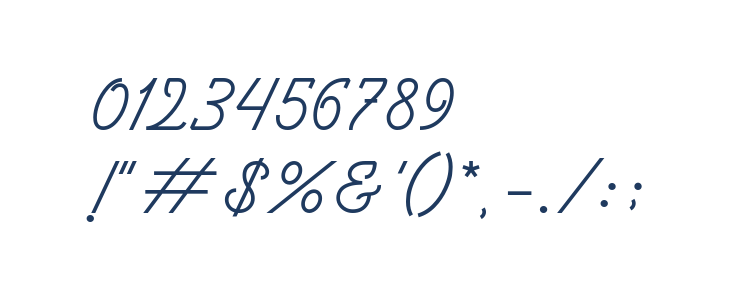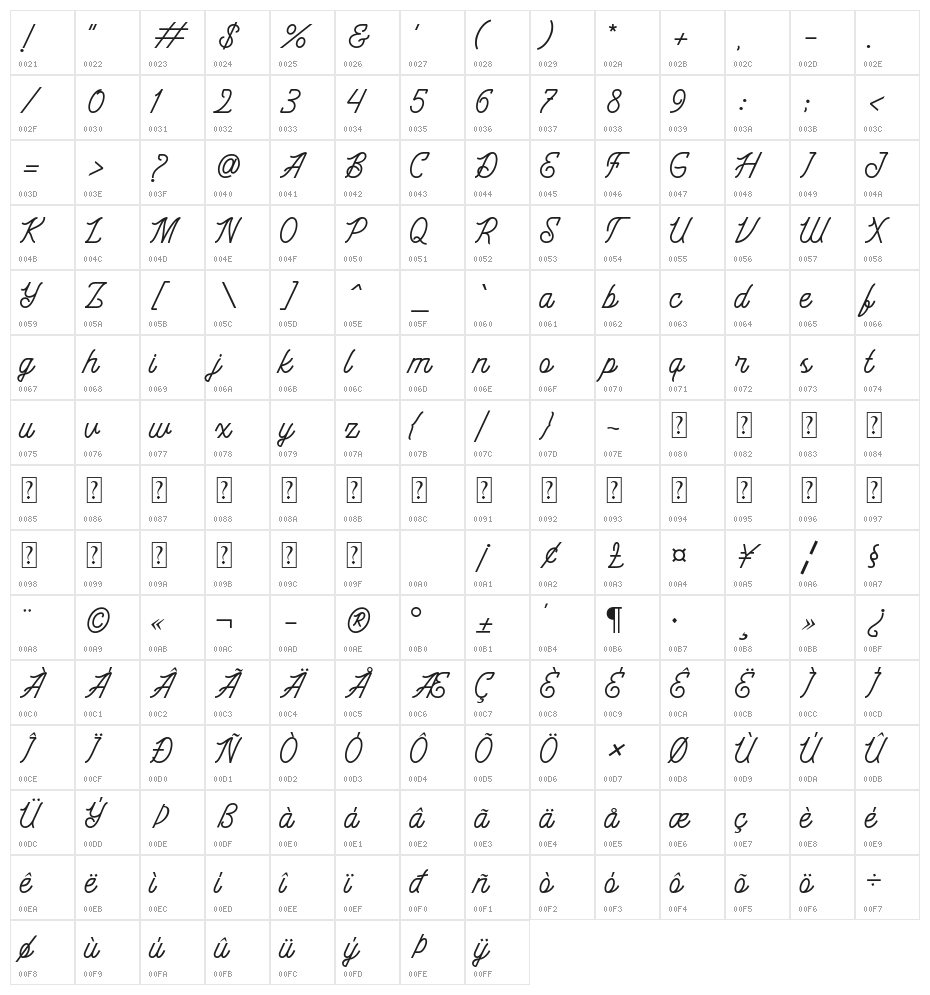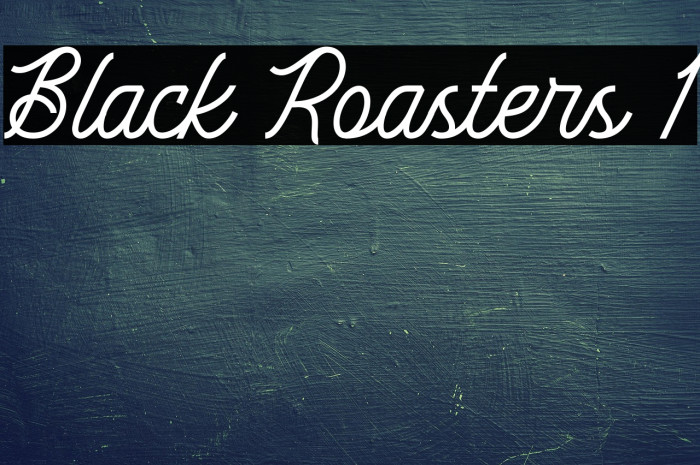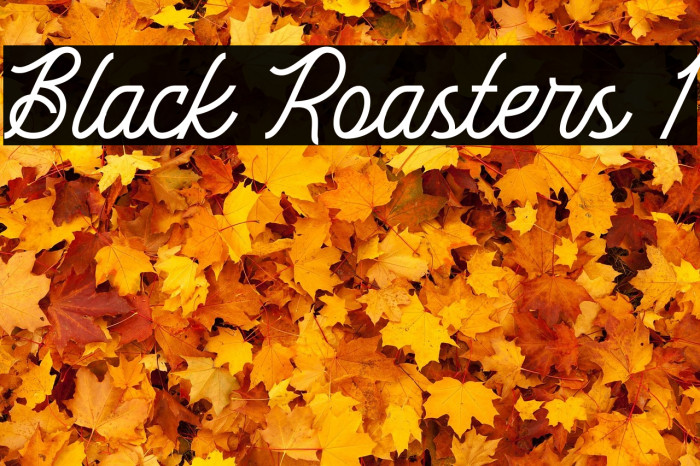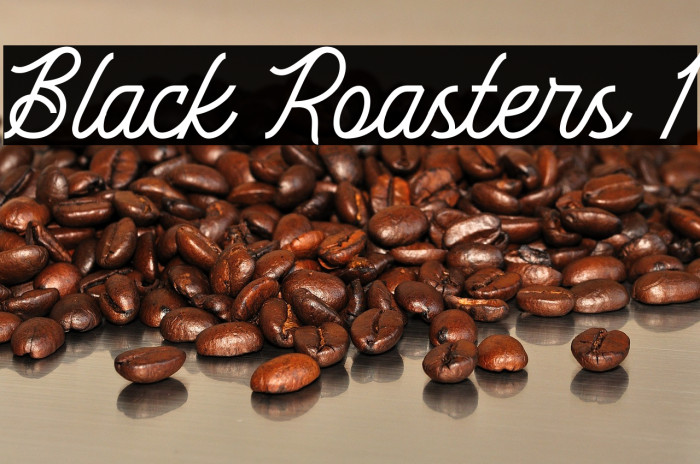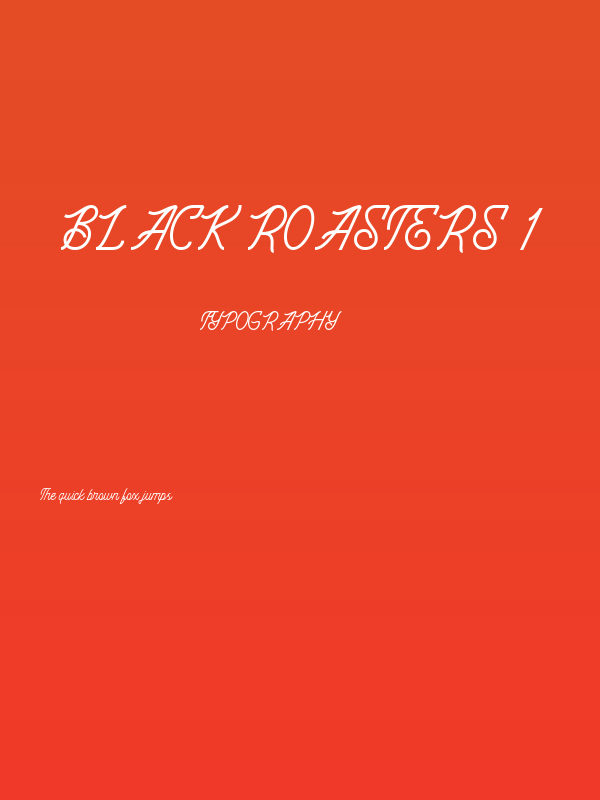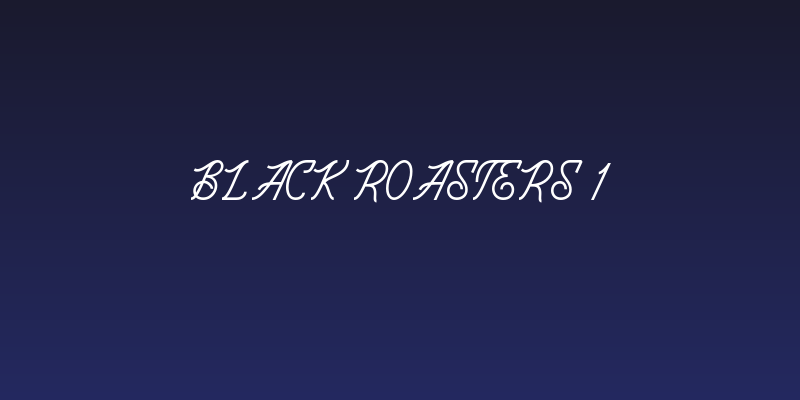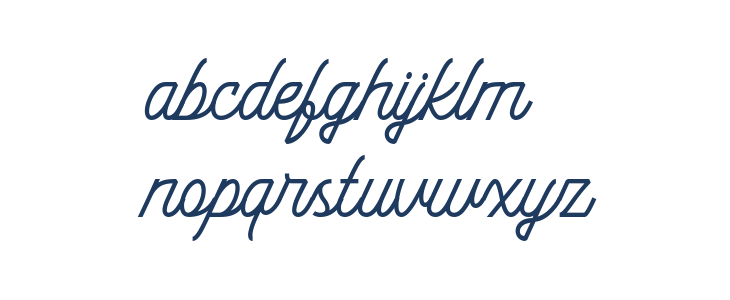
Black Roasters 1 Font
Black Roasters 1 Description
This font features a classic cursive style with elegant, flowing lines that give it a sophisticated and timeless appearance. The uppercase letters are bold and slightly slanted, while the lowercase letters maintain a consistent flow, enhancing readability. The numerals are well-proportioned, matching the overall aesthetic of the alphabet. Special characters are thoughtfully designed to complement the script style, making it versatile for various uses. The font's smooth curves and balanced weight make it suitable for formal invitations, branding, and decorative purposes.